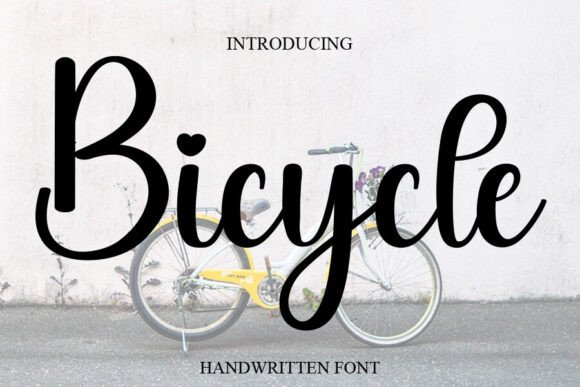
The Bicycle Font: A Simple yet Versatile Handwritten Delight
I’ll never forget the time I was working on a project for a client who wanted a greeting card design that felt personal and heartfelt. I had a clear vision of the overall aesthetic, but I was struggling to find the perfect font to bring it all together. That’s when I stumbled upon the Bicycle font, a simple handwritten font that has since become a staple in my design toolkit.
The Bicycle font is a versatile gem that can add a simple and natural feel to a wide range of projects, from greeting cards to headlines. Its understated elegance and effortless charm make it an excellent choice for designers, crafters, and creative hobbyists looking to add a personal touch to their work.
What I Love About Bicycle Font
• ✨ Simple and elegant handwritten style that’s easy on the eyes
• ✅ Highly versatile and adaptable to various design projects
• 💬 Excellent for creating a personal and heartfelt feel in designs
• 📝 Works beautifully for both headlines and body text
While the Bicycle font is an excellent choice for many projects, it’s not without its limitations. For instance:
• 🤔 The font may not be suitable for very formal or corporate designs, as it has a distinctly casual feel.
• ⚠️ Some users may find the font a bit too plain or simple for their taste.
The Story Behind Bicycle Font
The Bicycle font was designed with the intention of creating a simple, yet elegant handwritten font that could be used for a wide range of design projects. The designer wanted to create a font that felt personal and approachable, yet still maintained a level of sophistication and polish.
While the exact backstory of the font is unclear, it’s easy to imagine a designer sitting down with a pen and paper, brainstorming ideas for a font that could capture the essence of a handwritten note. The result is a font that’s both timeless and versatile, with a unique personality that shines through in every character.
Font Name Bicycle Font
Author cans studio